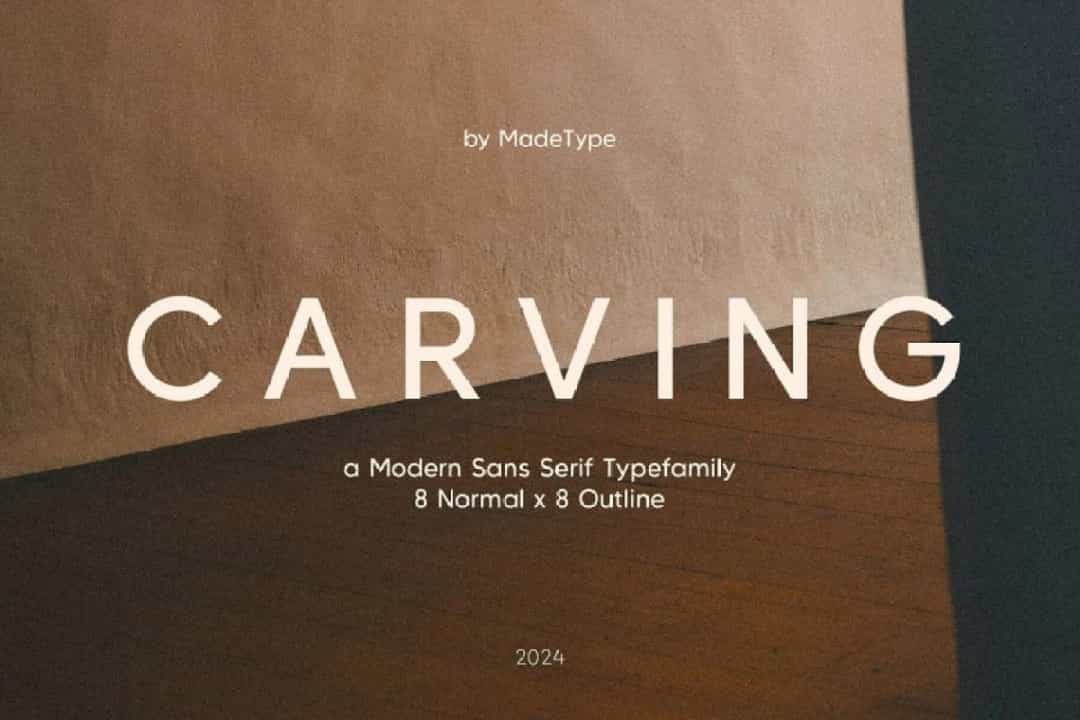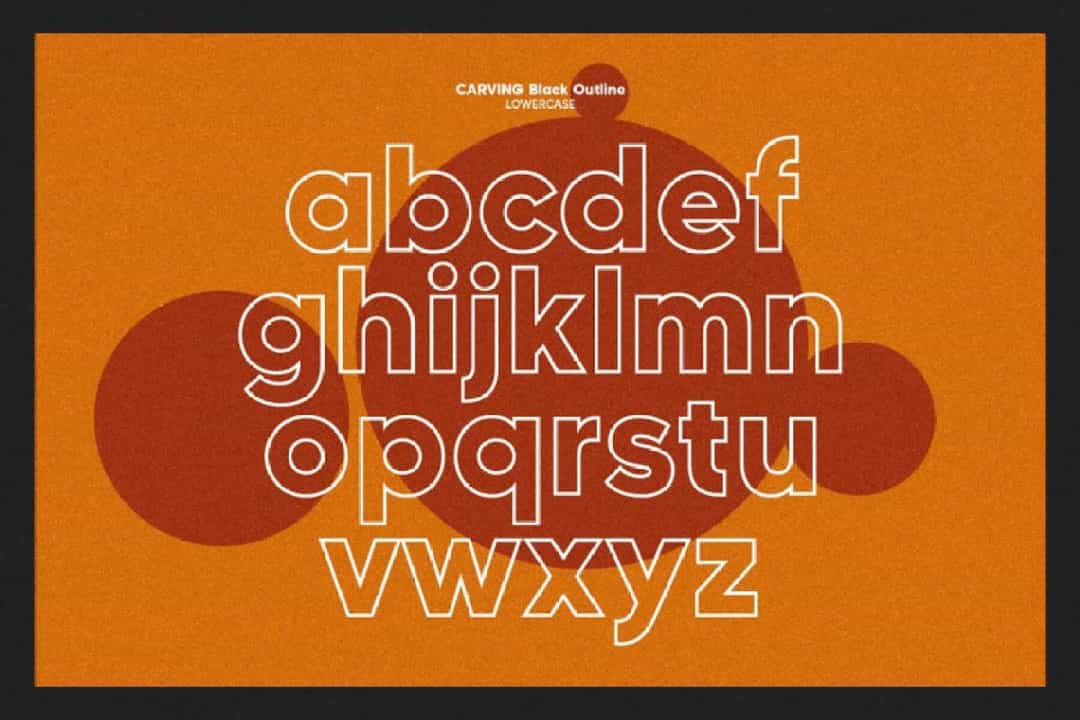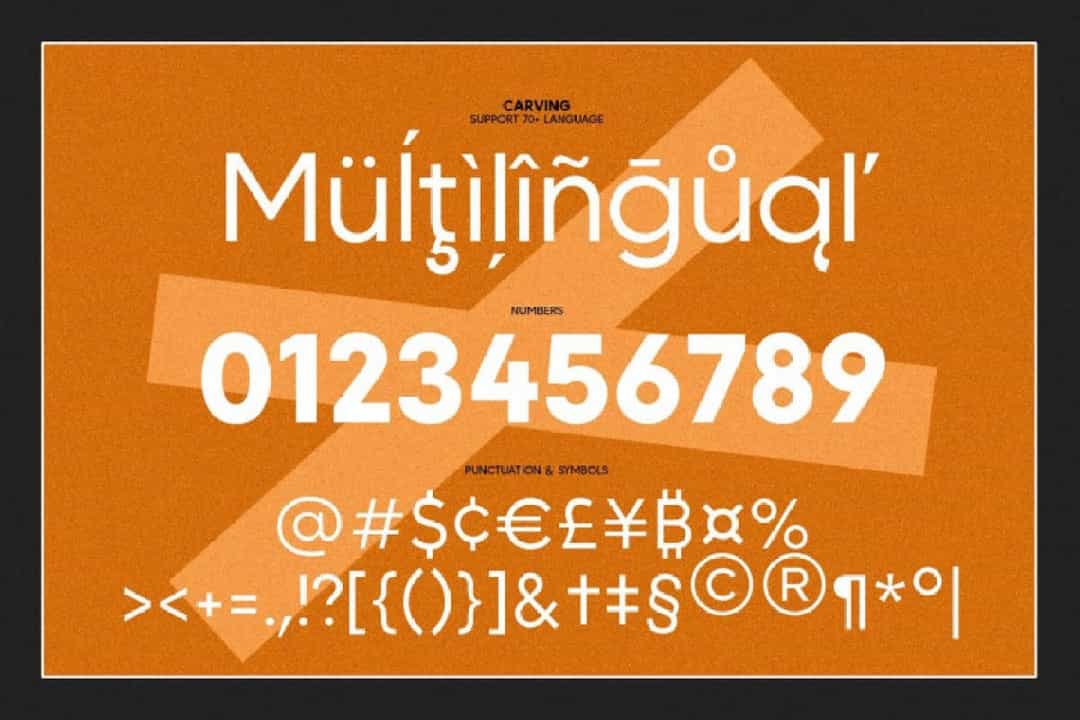
Made Carving features universal geometric forms in its font family of sans serif fonts, making it suitable for a range of projects such as fashion magazines, logos, branding and photography. Other applications could be invitations, wedding invitations, quotes, blog headers, posters, adverts postcards websites etc.